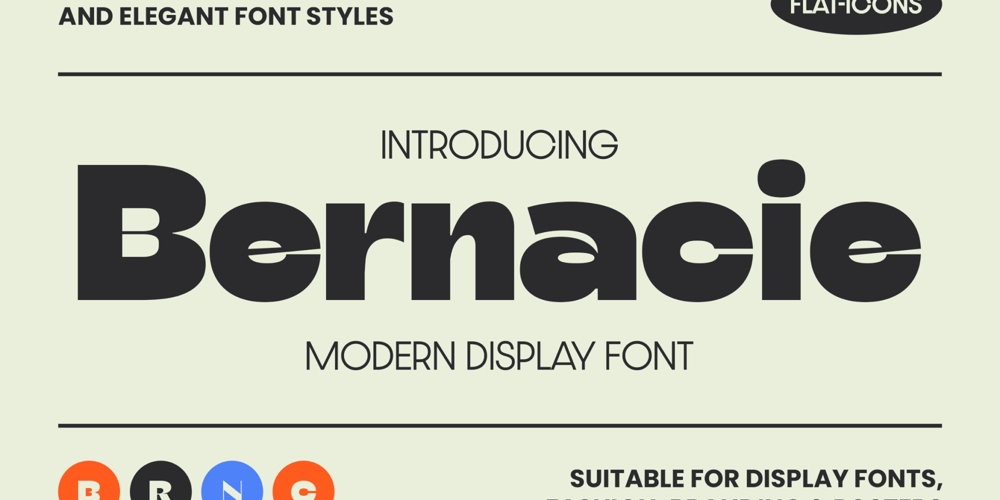
Bernacie Font Family was designed by Heri Imanudin and published by Krafted. Bernacie contains 1 styles and family package options. Bold and captivating, Bernacie is the perfect choice for digital and print projects alike. Use it for branding, headlines, marketing materials, and more!Bring sleek, modern charm to your designs with this versatile display font.What you’ll get: Multilingual & Ligature Support Full sets of Punctuation and Numerals Compatible with: Adobe Suite Microsoft Office Keynote Pages Software Requirements: The fonts that you’ll receive in the pack are widely supported by most software. In order to get the full functionality of the selection of standard ligatures (custom-created letters) in the script font, any software that can read OpenType fonts will work. We hope you enjoy this font and that it makes your branding sparkle! Feel free to reach out to us if you’d like more information or if you have any concerns.